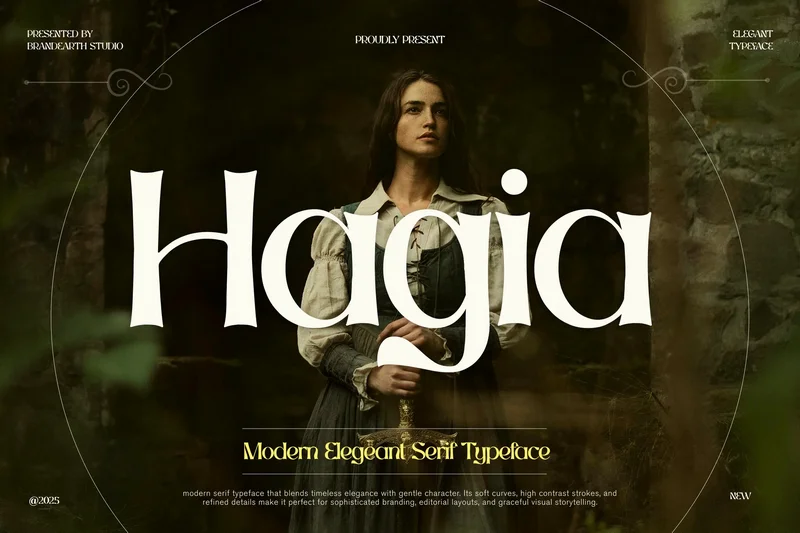
Hagia Luxury Psychedelic Serif
Hagia is a refined serif font that blends modern sophistication with timeless elegance. Characterized by soft contrast, graceful curves, and delicate ligatures, Hagia evokes a sense of luxury and femininity. Ideal for high-end branding, editorial layouts, and boutique packaging, this typeface radiates confidence, softness, and quiet beauty—perfect for telling stories through design.
Relevance and Use Cases Hagia is perfect for luxury brand identity, perfume packaging, magazine layouts, wedding invitations, feminine branding, lifestyle blogs, editorial headlines, boutique product labels, photography books, interior design presentations, feminine font, stylish serif font, timeless design, editorial serif, ligature fonts, beauty branding, sophisticated, romantic serif, premium font, delicate curves